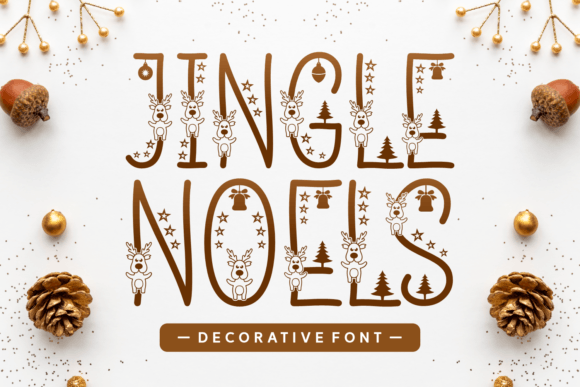
Deck the Halls with the Perfect Holiday Font
It’s that time of the year when creativity knows no bounds, and our minds are filled with visions of sugarplums, snowflakes, and all things merry and bright. As you start brainstorming ideas for your Christmas projects, you can’t help but wonder – what’s the secret to making them truly special? For many designers, the answer lies in the perfect font. Enter the Jingle Noels Font, a delightful decorative font that’s sure to put you in the holiday spirit.
This charming font is designed to add a touch of festive magic to all your holiday creations, from greeting cards and wall art to digital designs and more. Its cute ornaments and festive flair make it a valuable asset for designers looking to create unique and eye-catching holiday content. Whether you’re a seasoned pro or a holiday newbie, the Jingle Noels Font is sure to be your new go-to for all things Christmas.
- Font Family: Jingle Noels
- Character Count: 1024 glyphs
- Unique Characteristics: A festive and playful font designed for the holiday season, featuring intricate details and ornaments, ideal for creating a whimsical atmosphere in designs.
Jingle Noels Font Review
As a designer, I was excited to dive into the Jingle Noels Font, hoping to find a unique and festive addition to my holiday projects. Here’s my honest take on this font.
- Unique Design: Jingle Noels Font brings a fresh take on traditional holiday typography, making it perfect for adding a personal touch to your designs.
- High-Quality Vectors: The font includes high-quality vector graphics that can be scaled up or down without losing any detail, making it ideal for both print and digital projects.
- Wide Character Set: The font includes a wide range of characters, including Latin, Cyrillic, and Greek alphabets, making it suitable for designing in multiple languages.
- Limited Font Sizes: The font may not be suitable for large font sizes, as it can become pixelated and lose its unique charm.
- Not Suitable for Headlines: Due to its decorative nature, Jingle Noels Font may not be the best choice for headlines or titles, where legibility is crucial.
Jingle Noels Font is a great addition to any holiday-themed design project. Its unique design and high-quality vectors make it perfect for creating eye-catching visuals. However, it’s essential to keep in mind its limitations, such as limited font sizes and suitability for headlines. With careful use, Jingle Noels Font can add a touch of festive charm to your designs.
The Jingle Noels Font is perfect for creating festive and fun designs for the holiday season, such as:
Christmas cards, invitations, and party decorations
Gift tags and wrapping paper
Social media graphics and advertisements